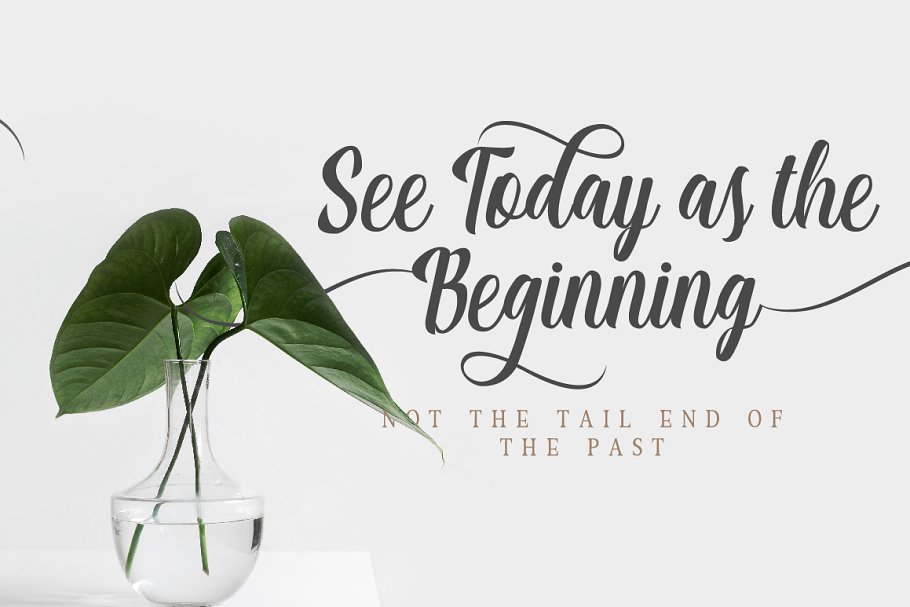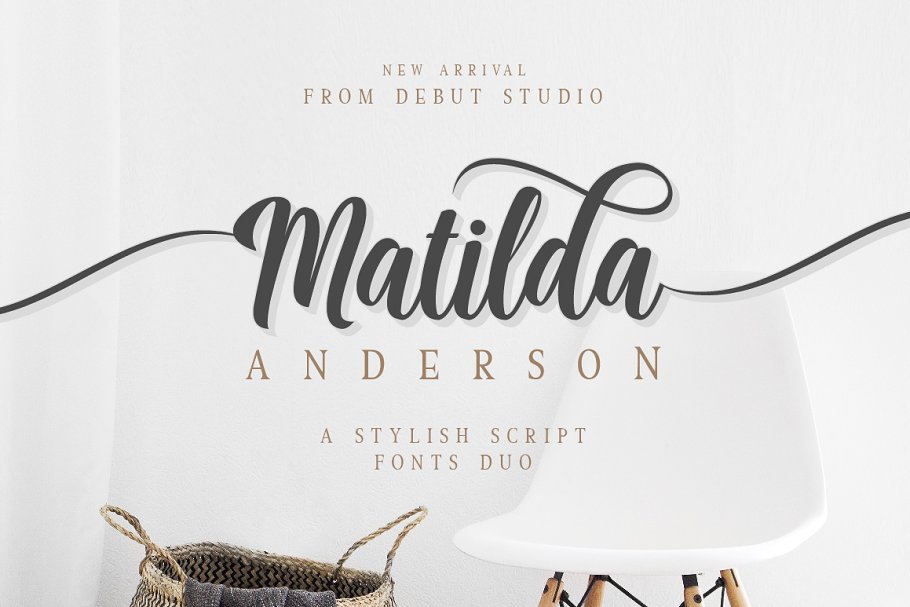
Matilda Anderson Font Duo
Matilda Anderson Font Duo – Free Demo
Matilda Font– This is a unique blend of classic and modern font! Simple but strong. Matilda is the answer to all the ideas you need for now. Matilda is designed and shared by Debut Studio. Matilda Anderson Font Duo – is a modern script that is designed in detail, Made with original hand pulls, The perfect font to meet needs such as photography, Signatures, Branding, Logos, And More.